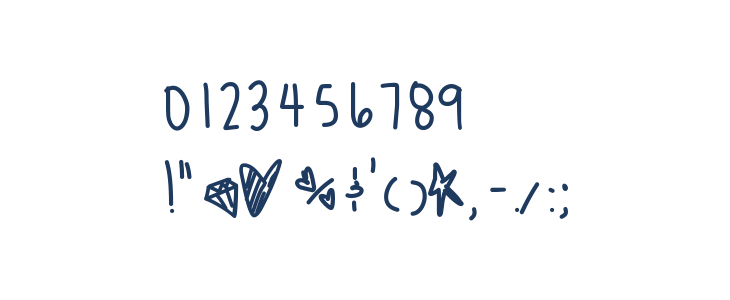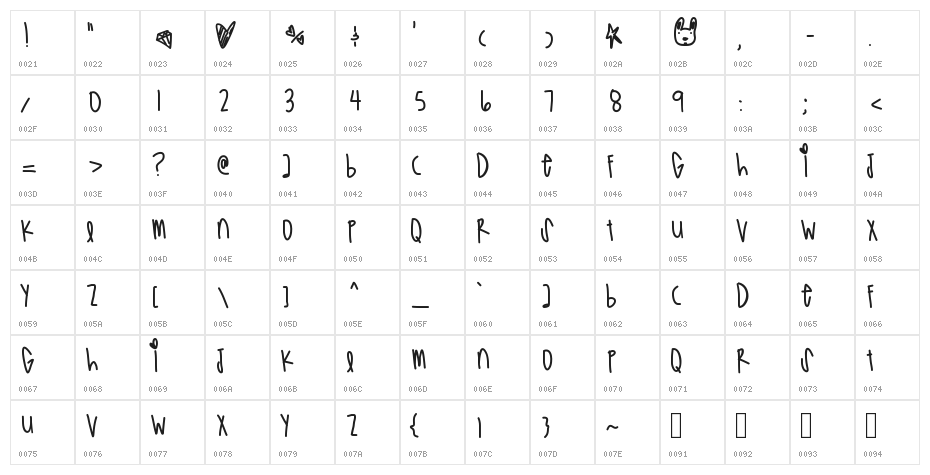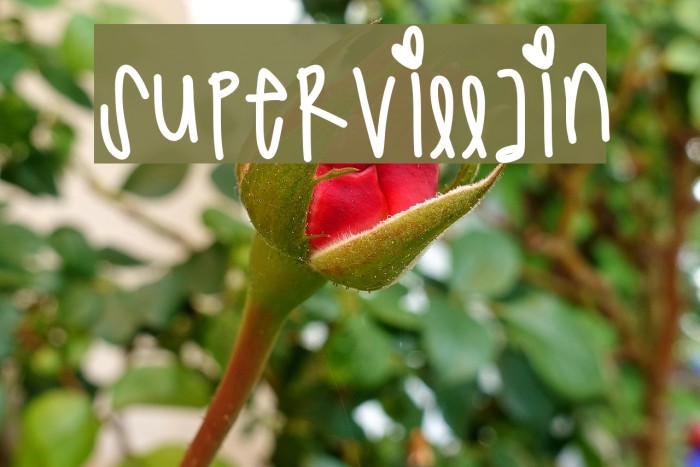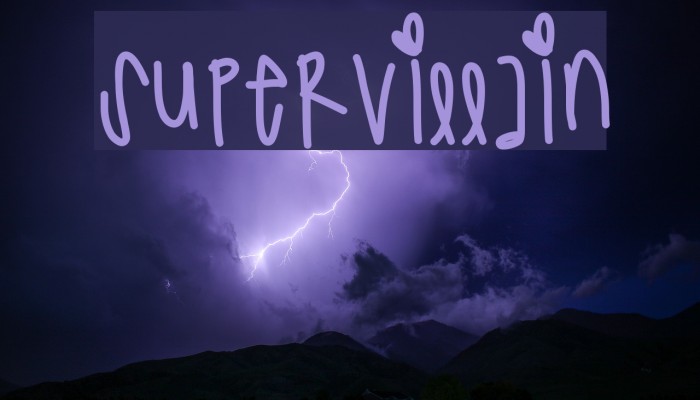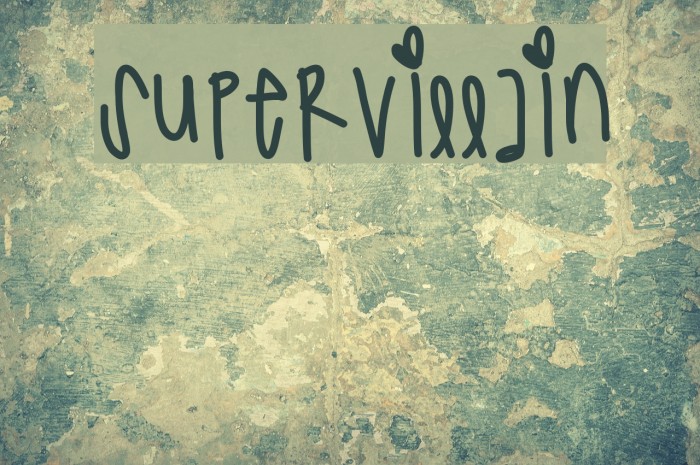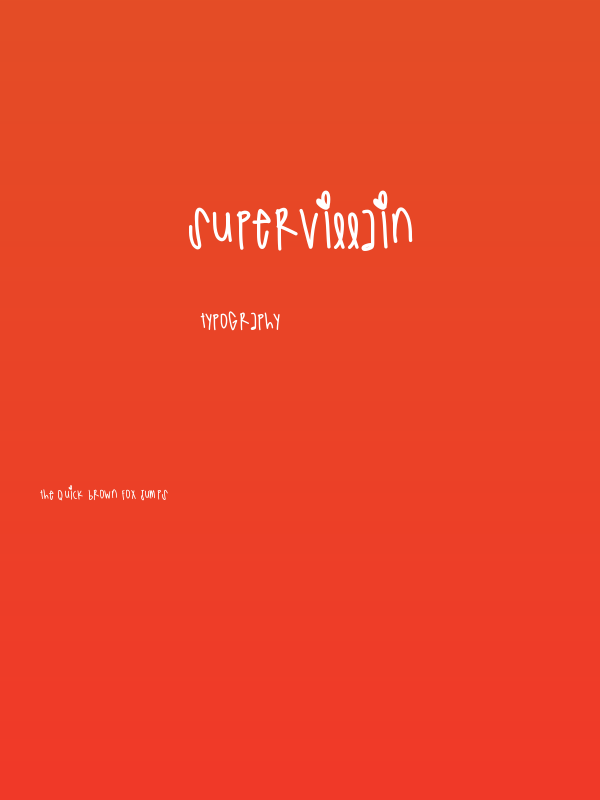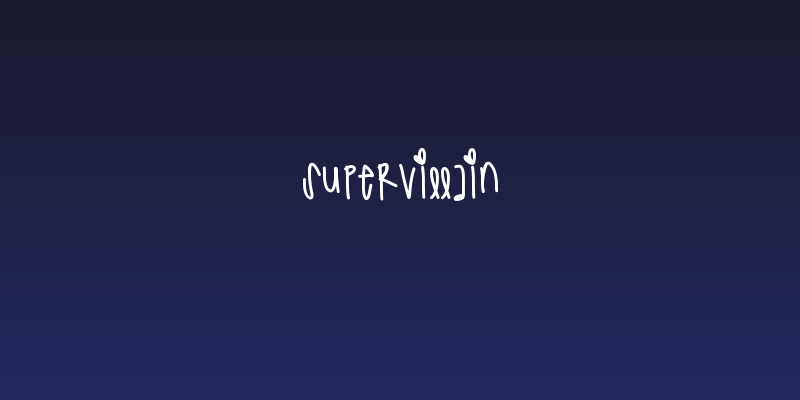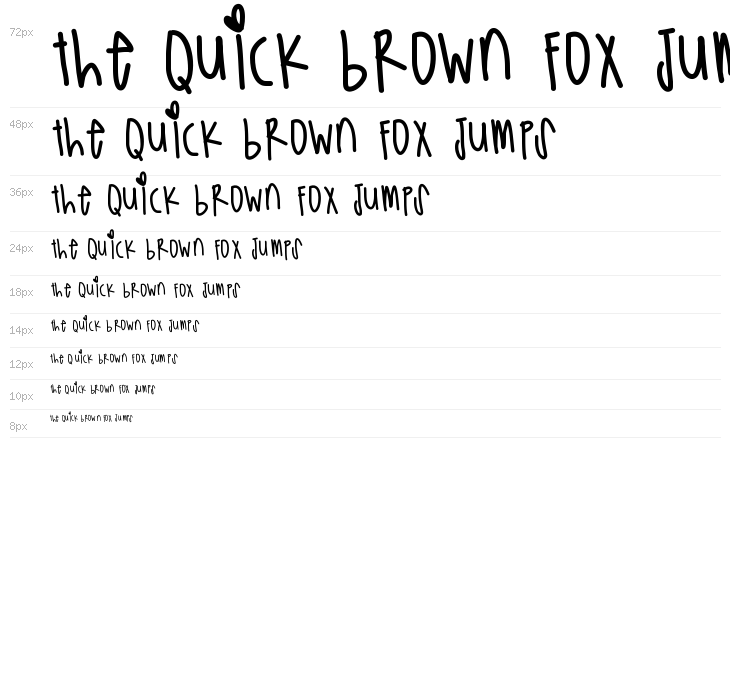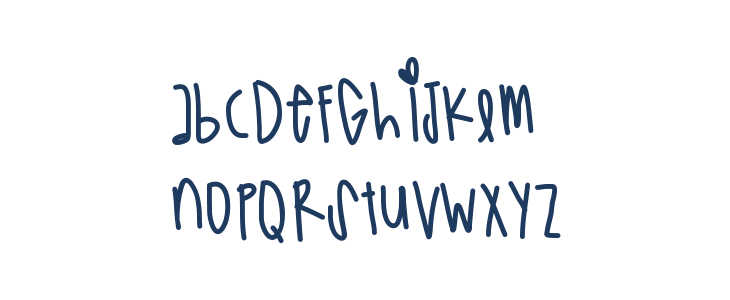
SuperVillain Font
SuperVillain Description
This playful and whimsical font features a handwritten style with a casual and informal appearance. The letters are slightly irregular, adding a charming and unique character to the text. The strokes are consistent in width, giving it a uniform look despite its freeform nature. The inclusion of small decorative elements, such as hearts, enhances its playful aesthetic. This font is perfect for projects that require a personal touch or a fun, lighthearted vibe. The numbers and special characters maintain the same playful style, ensuring a cohesive look across all text elements.
| Use Case | Logos, Headlines, Informal Text |
| Proposed Projects | Ideal for greeting cards, children's books, playful branding, and social media graphics. |